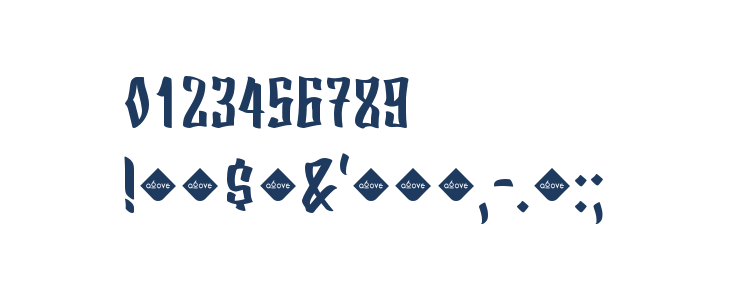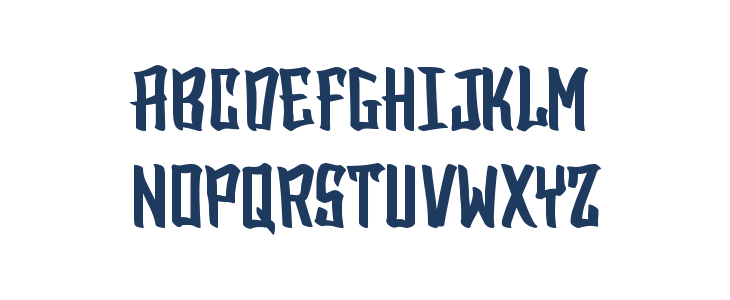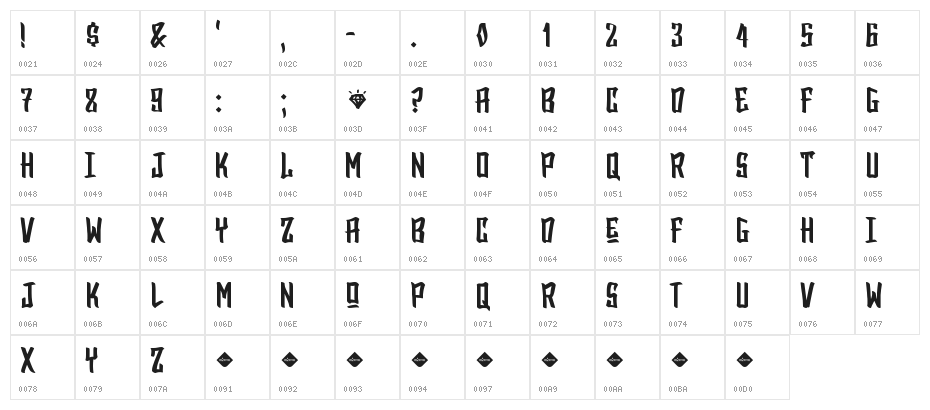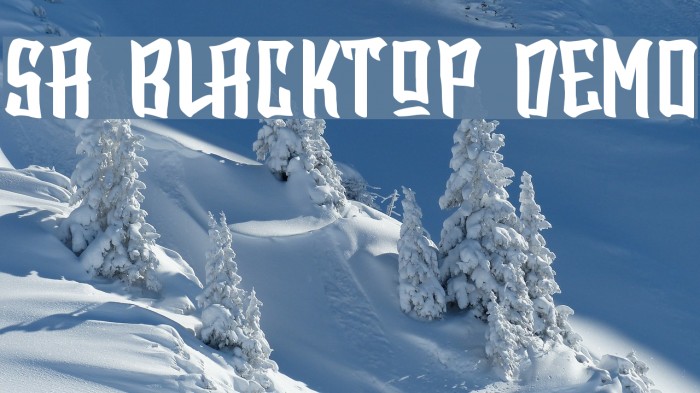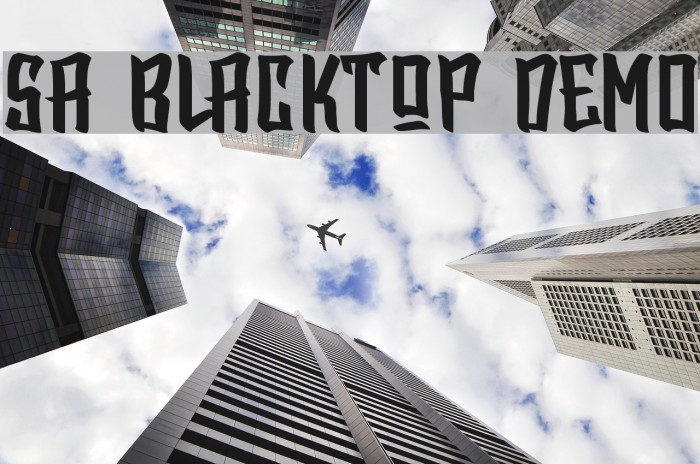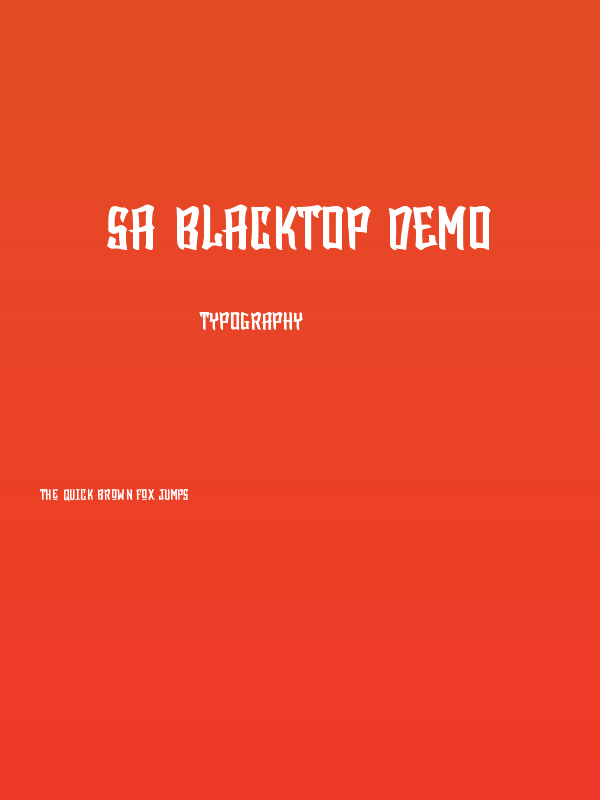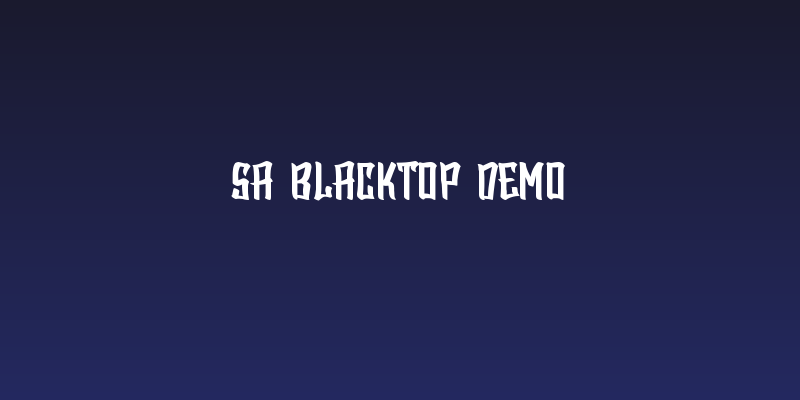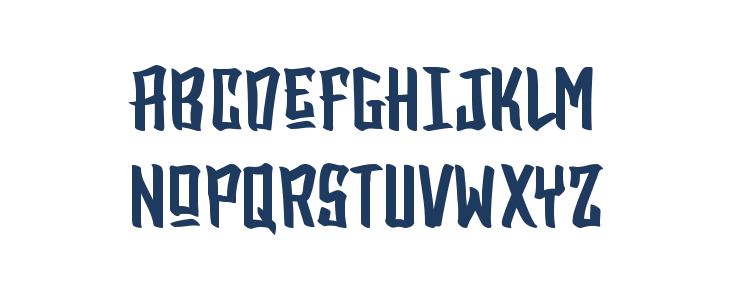
SA BlackTop DEMO Font
SA BlackTop DEMO Description
This font features a bold, dynamic style with a strong presence. The characters are designed with sharp angles and a slightly condensed form, giving them a unique, edgy appearance. The uppercase and lowercase letters maintain a consistent height, while the numbers and special characters are crafted to match the overall aesthetic. The strokes are thick and uniform, providing a high contrast that enhances readability. This font's distinctive look makes it ideal for projects that require a bold statement.
| Proposed Projects | Perfect for headlines, posters, logos, and branding materials that need a strong visual impact. |